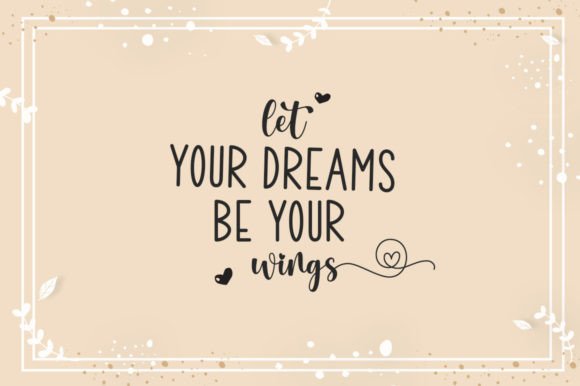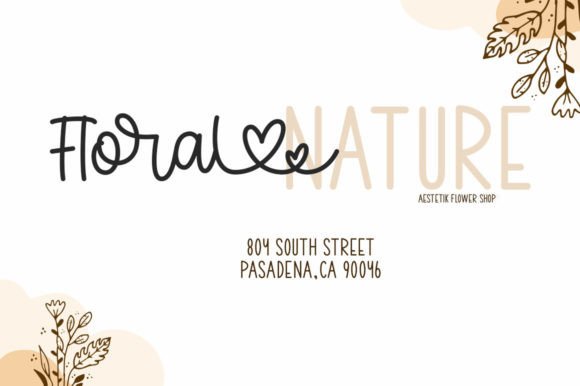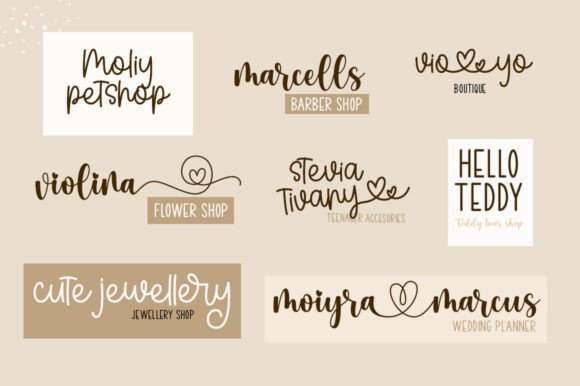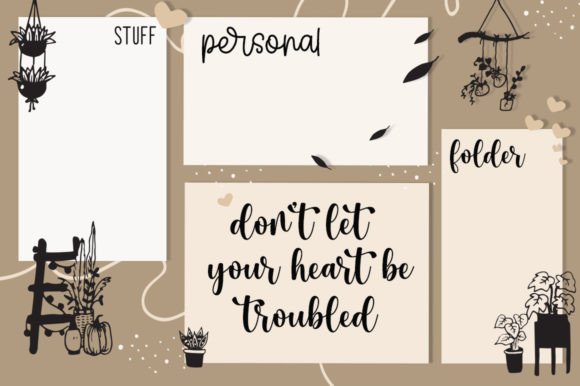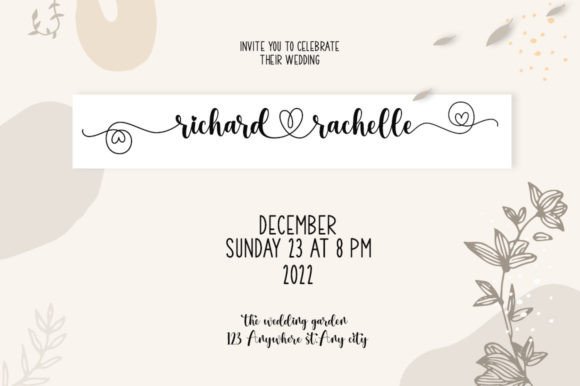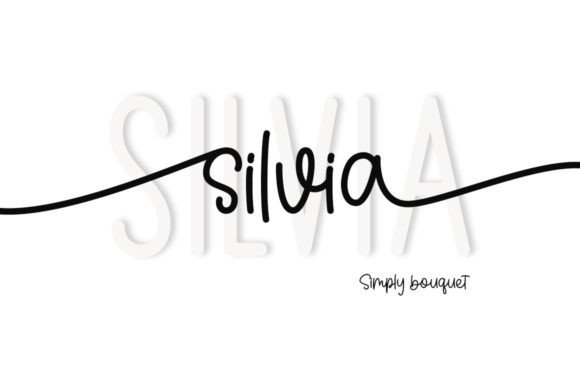
Introduction to Senoritha Font
As a designer, there’s nothing quite like the thrill of bringing a creative project to life. You’ve spent hours pouring over sketches, refining your concept, and perfecting the details. And then, it happens – the moment when all the pieces come together, and your vision takes shape. But, have you ever found yourself struggling to find the perfect font to tie everything together? That’s where Senoritha Font comes in – a stunning collection of three fonts (handwritten, script, and sans serif) designed to complement each other perfectly.
Whether you’re working on a free download or a high-quality design project, Senoritha Font is the ideal resource to add a touch of elegance and sophistication. With its transparent background and PUA encoding, you’ll have access to all the glyphs and swashes you need to bring your design to life.
Key Features of Senoritha Font
- Features a unique, elegant script with a transparent background, ideal for adding a touch of sophistication to designs.
- Includes a range of ligatures and swashes, allowing designers to add a personal touch to their creative projects.
- Perfect for use in branding, invitations, and other design elements where a elegant, handwritten feel is desired.
Honest Review: Senoritha Font
As a designer, I’m always on the lookout for high-quality design resources that can elevate my creative projects. Recently, I had the chance to try out the Senoritha Font, and I’m excited to share my honest review with you.
What works well: ✨ The Senoritha Font is a stunning addition to any design project. Its elegant, cursive script is perfect for creating eye-catching headings and titles. The font is also highly customizable, allowing me to adjust the size, color, and spacing to fit my design needs.
- High-quality design: The Senoritha Font is a premium design resource that’s perfect for any creative project.
- Transparent background: The font’s transparent background makes it easy to layer over other design elements.
Limitations: ⚠️ While the Senoritha Font is a great addition to any design project, I did find that it’s not suitable for body text. The font is too ornate and cursive for large blocks of text, so it’s best used for headings and titles.
Overall impression: I’m really impressed with the Senoritha Font, and I think it’s a valuable addition to any designer’s toolkit. With its high-quality design and customizable features, it’s perfect for creative projects that require a touch of elegance and sophistication.
The Senoritha Font is perfect for a variety of creative projects, including:
Alternatives to Senoritha Font
The Alex Brush Font is a high-quality script font that is perfect for creative projects such as wedding invitations, branding, and packaging. It features a beautiful, elegant design with a transparent background, making it ideal for designs that require a touch of sophistication. When to use: For designs that require a elegant and sophisticated look. How it compares to Senoritha Font: While both fonts have a elegant look, Alex Brush Font has a more classic and timeless feel compared to the more modern design of Senoritha Font.
The Carolyna Pro Font is a modern script font that is perfect for designers looking for a high-quality font with a transparent background. It features a clean and elegant design that is ideal for branding, packaging, and creative projects. When to use: For designs that require a modern and sleek look. How it compares to Senoritha Font: Carolyna Pro Font has a more modern and sleek design compared to the more traditional design of Senoritha Font.